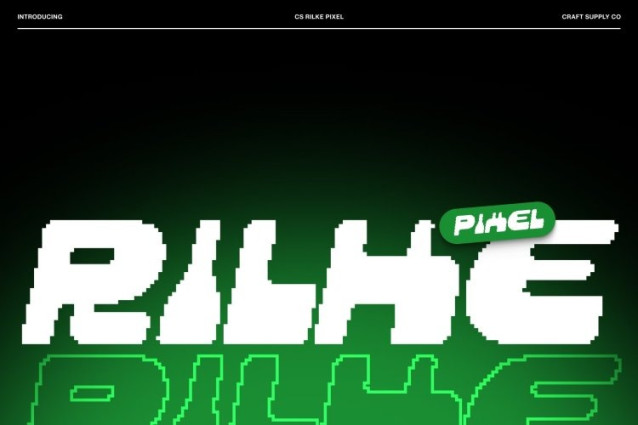
CS Rilke Pixel Font
CS Rilke Pixel Font This is a futuristic display font infused with bold Y2K aesthetics and digital pixel influence. Its sharp construction and structured flow evoke the spirit of early-2000s techno visuals while feeling unmistakably modern. The result is a typeface that captures nostalgia, innovation, and digital culture in one powerful form.
Bold Geometric Forms with Pixel Precision
Built from strong, blocky letterforms and precise geometry, this font delivers maximum visual impact. The pixel-inspired structure adds a crisp, screen-ready character that enhances its bold presence. Each character feels solid and confident, making the font ideal for headlines, logos, and statement typography that demands attention.
Perfect for 3D, Motion, and Digital Effects
This font pairs effortlessly with 3D rendering, gradients, glow effects, and motion graphics. Its sturdy construction holds up beautifully in futuristic posters, gaming interfaces, UI elements, and animated visuals, creating depth and intensity across digital platforms.
Versatile for Modern and Tech-Driven Projects
From music visuals, posters, and branding to games, digital art, and tech-inspired layouts, this font adapts seamlessly. Its fusion of futuristic design and pixel clarity makes it a strong choice for designers looking to express bold creativity, innovation, and forward-thinking style in modern projects.